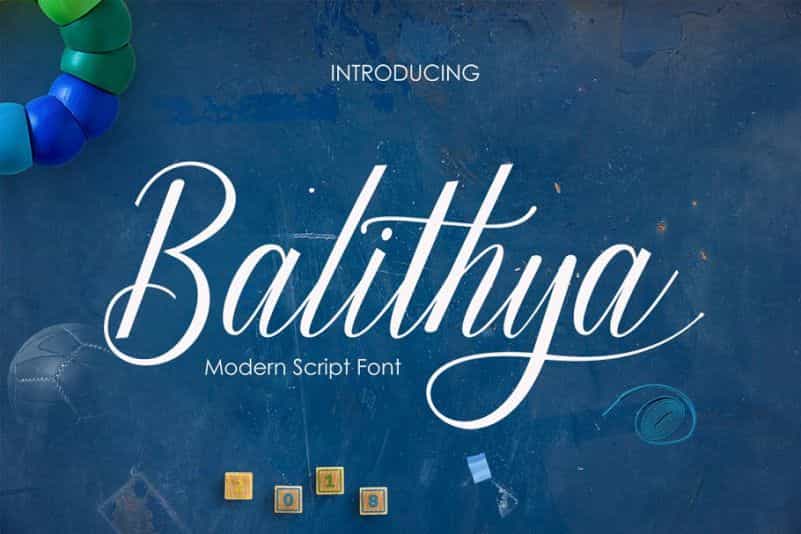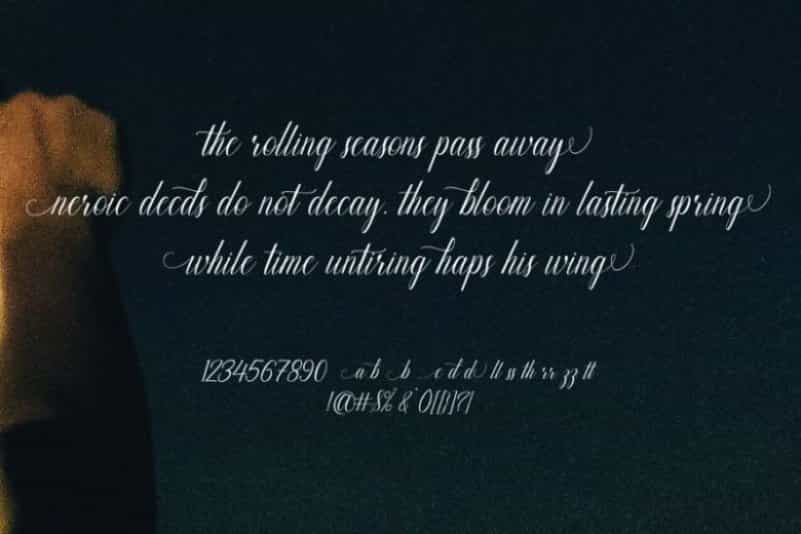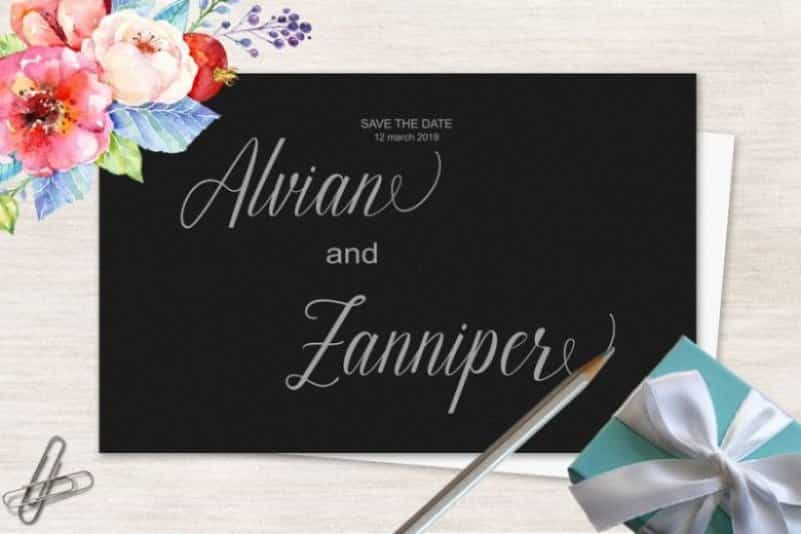
Balithya Font – A new calligraphy script font has been created! This font is excellent for your new project. It is created and distributed by josstype. Bahia Script, the Handwritten Calligraphy Font with a beautiful wave effect and natural flow is what it is all about. has an original letter style, which is hand drawn and natural, with a smooth and soft character subtly connecting all the letters.